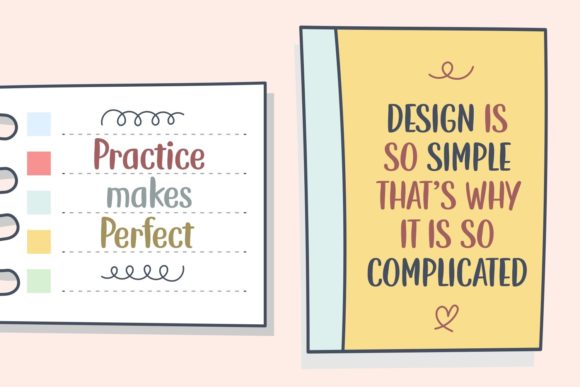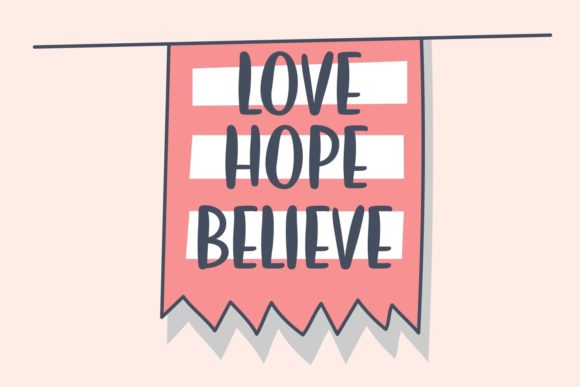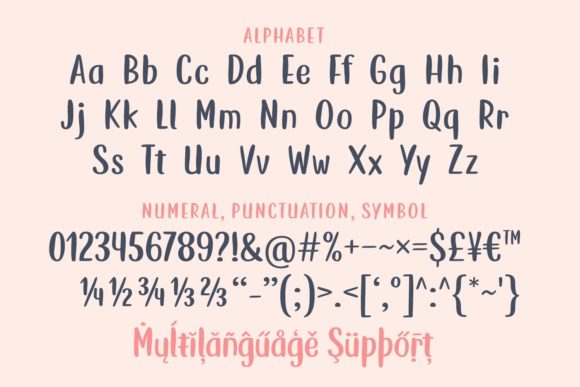
Hands-on Learning Font: Elevate Your Designs with a Clean and Spirited Handwritten Style
Are you a designer, crafter, or educator looking for a font that can add a personal touch to your projects? Look no further than the Hands-on Learning Font! This clean and spirited handwritten font is perfect for a variety of applications, from greeting cards and teaching materials to display signs and more. In this article, we’ll dive into the features and benefits of the Hands-on Learning Font, and explore how it can become a valuable asset to your font library.
What is Hands-on Learning Font?
Hands-on Learning Font is a beautifully crafted handwritten font that exudes a sense of friendliness and approachability. Its clean lines, subtle flair, and spirited personality make it an excellent choice for designs that require a personal touch. Whether you’re creating educational materials, greeting cards, or display signs, this font is sure to make your project stand out.
Key Features of Hands-on Learning Font
- Clean and Legible: The Hands-on Learning Font features clean lines and a clear letterform, making it easy to read and understand, even at smaller font sizes.
- Spirited Personality: This font has a lively and energetic feel, perfect for designs that require a bit of whimsy and playfulness.
- Handwritten Style: The font’s handwritten style gives it a personal and approachable feel, making it perfect for designs that require a human touch.
- Versatile: The Hands-on Learning Font can be used for a wide range of applications, from educational materials and greeting cards to display signs and more.
Benefits of Using Hands-on Learning Font
So why choose the Hands-on Learning Font for your next project? Here are just a few benefits of using this amazing font:
- Adds a Personal Touch: The font’s handwritten style and spirited personality make it perfect for designs that require a personal touch.
- Enhances Readability: The clean lines and clear letterform of the font make it easy to read and understand, even at smaller font sizes.
- Increases Engagement: The font’s lively and energetic feel can help increase engagement and capture the attention of your audience.
- Versatile: The font can be used for a wide range of applications, making it a valuable asset to your font library.
How to Use Hands-on Learning Font in Your Designs
Ready to start using the Hands-on Learning Font in your designs? Here are a few ideas to get you started:
- Greeting Cards: Use the font to create personalized greeting cards for special occasions, such as birthdays, holidays, and graduations.
- Teaching Materials: The font is perfect for educational materials, such as worksheets, activity sheets, and classroom posters.
- Display Signs: Use the font to create eye-catching display signs for events, sales, and promotions.
- Crafting Projects: The font is also perfect for crafting projects, such as scrapbooking, journaling, and card making.
In conclusion, the Hands-on Learning Font is a clean and spirited handwritten font that can add a personal touch to your designs. Its versatility, readability, and lively personality make it an excellent choice for a wide range of applications. Whether you’re a designer, crafter, or educator, this font is sure to become a valuable asset to your font library. So why wait? Download the Hands-on Learning Font today and start creating amazing designs that capture the attention of your audience!